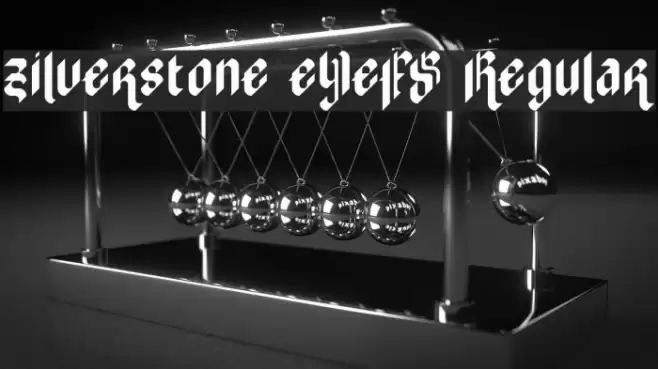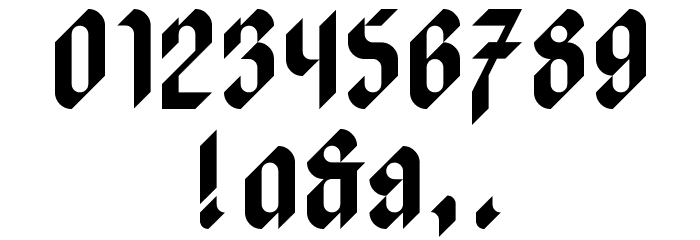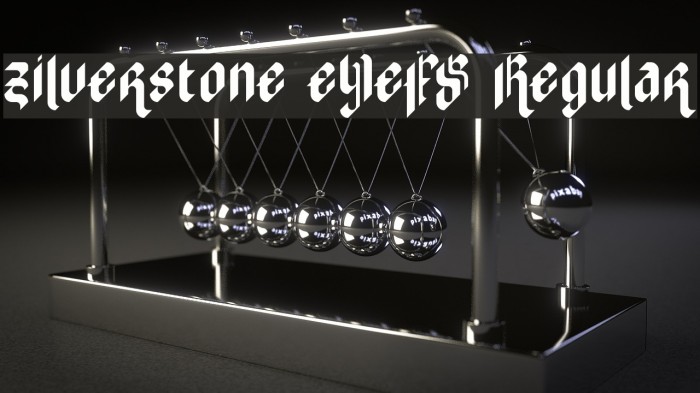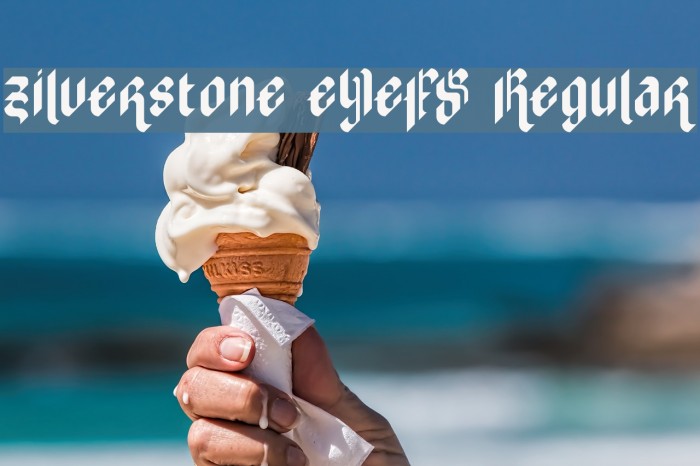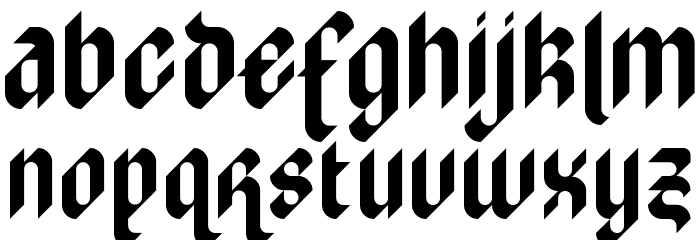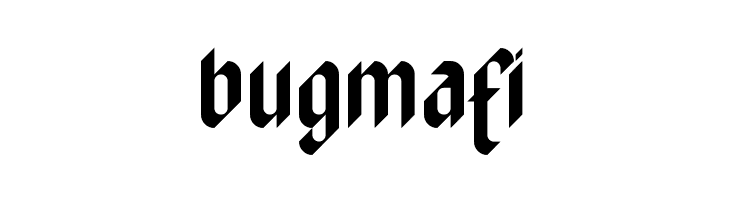
zilverstone eYe/FS Regular Font
zilverstone eYe/FS Regular Description
This font features a bold and striking blackletter style, characterized by its sharp, angular lines and dramatic presence. The uppercase letters exhibit a traditional Gothic influence, with intricate details and a strong vertical emphasis. The lowercase letters maintain the same boldness, offering a cohesive look throughout the typeface. Numbers and special characters are designed with the same attention to detail, ensuring consistency and readability. The overall design is reminiscent of medieval script, making it ideal for projects that require a historical or formal aesthetic.
A bold blackletter font with sharp, angular lines and a Gothic influence from Modern fonts.
- Proposed Projects: Suitable for historical documents, formal invitations, branding for luxury products, or any project requiring a medieval aesthetic.
- Character Spacing: Tight
- Overall Style: Vintage